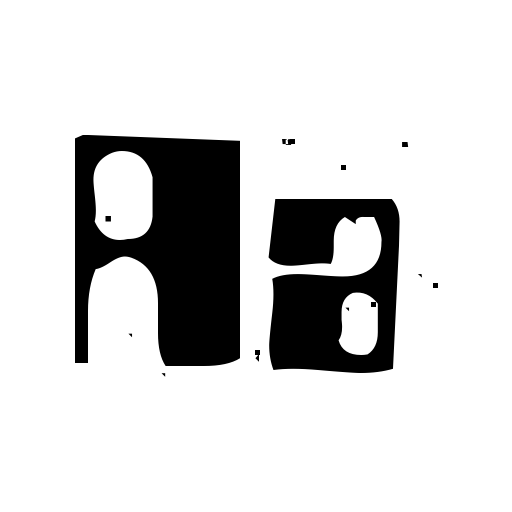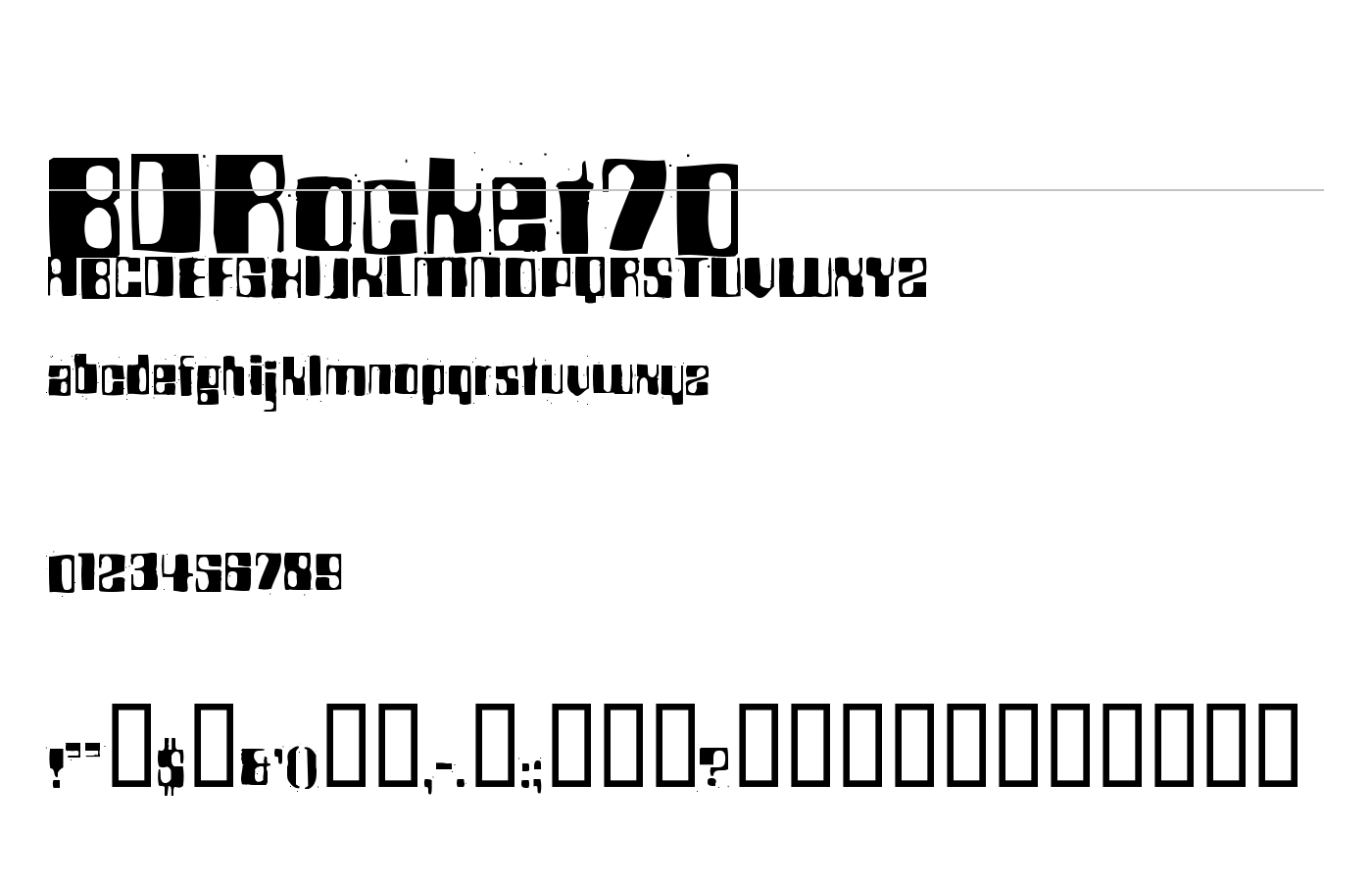
BDRocket70 is a bold, condensed sans serif font with a distressed, grungy texture that gives it a strong, industrial character. Its tall, narrow letterforms and irregular stroke edges make it ideal for eye-catching headlines or branding projects that want to evoke an edgy, modern, or tech-inspired vibe. This font works best in display uses like posters, logos, or packaging where a striking, unconventional look is desired.
BDRocket70 Font